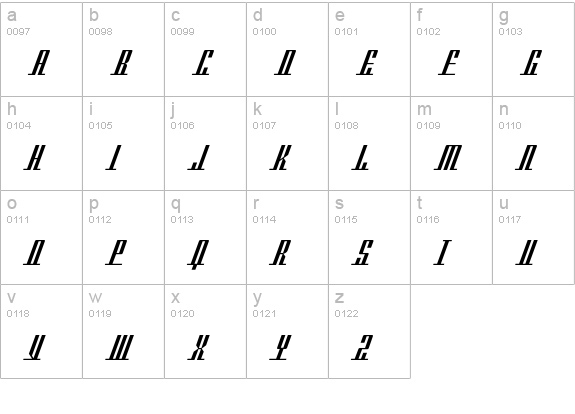
SF Americana Dreams SC Font Details
SF Americana Dreams SC is a remarkable font that effortlessly captures the essence of American nostalgia and dreams. With its unique blend of vintage charm and modern sophistication, this font is perfect for adding a touch of Americana to your designs. Designed with meticulous attention to detail, SF Americana Dreams SC features beautifully crafted letterforms that evoke a sense of patriotism and adventure. The tall, elegant capitals and slender lowercase letters create a harmonious balance that is both visually pleasing and legible. Each character is expertly kerned to ensure flawless spacing and readability. This font is a true ode to the American spirit, with its timeless appeal and classic aesthetic. It is versatile enough to be used in a wide range of design projects, from logos and branding to headlines and signage. Whether you're working on a vintage-inspired poster or a modern website, SF Americana Dreams SC will add a touch of nostalgia and warmth to your designs. One of the most remarkable aspects of SF Americana Dreams SC is that it is available for free download at FontsMarket.com. This means that you can easily access and use this stunning font without any cost. Simply visit FontsMarket.com and download SF Americana Dreams SC to add a touch of Americana to your designs. Overall, SF Americana Dreams SC is a must-have font for designers and creatives who want to infuse their projects with a sense of American history and dreams. With its timeless appeal, flawless craftsmanship, and the fact that it is freely available to download at FontsMarket.com, this font is a true gem in the world of typography.